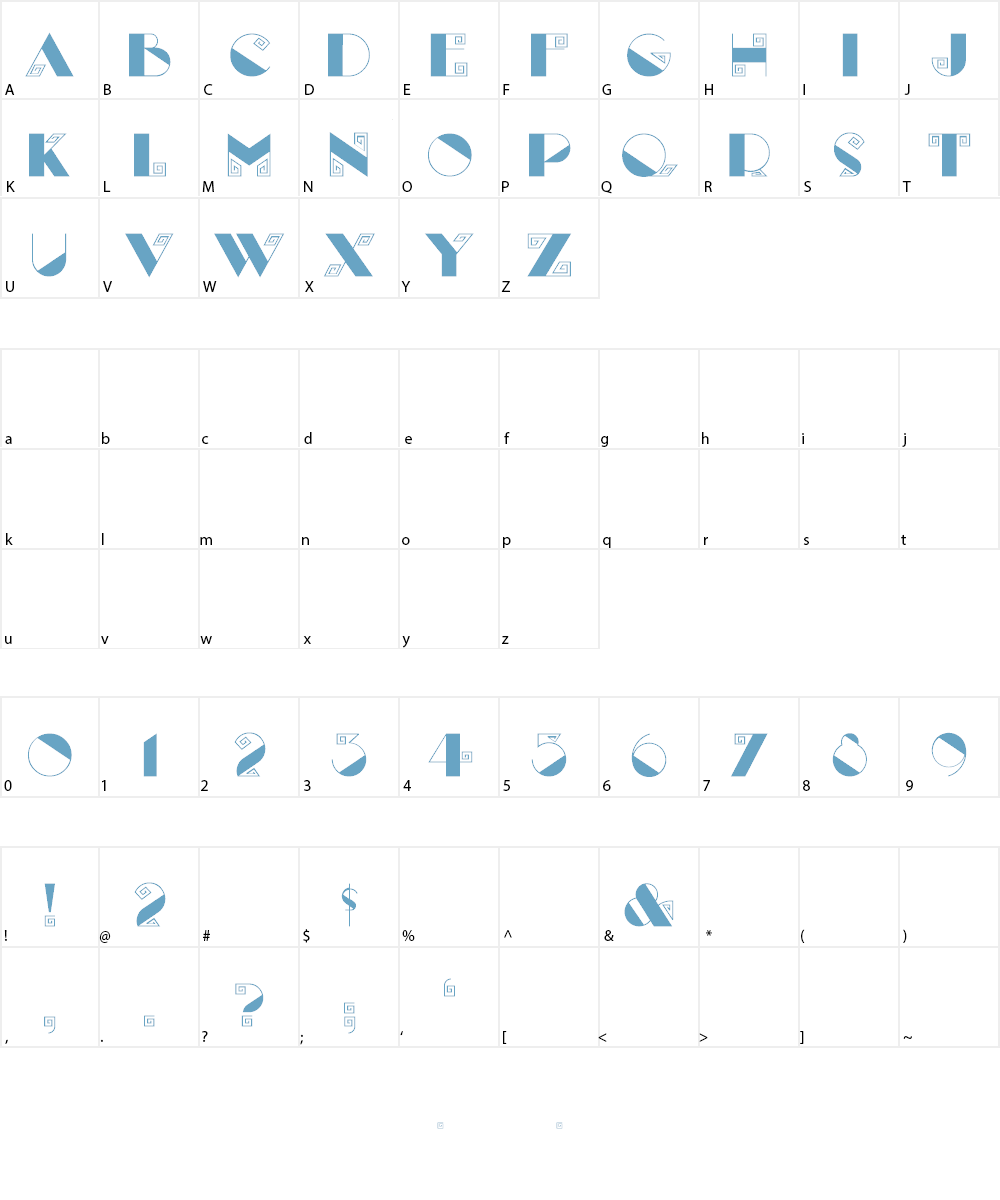
Okay, this one is weird, but there are some of you out there who really like this kind of stuff (and you know who you are). This flight of fancy is derived from some typographic doodlings “of the modern sort” by a French designer known simply as A. Bardi, ca. 1925. Best used in small doses.